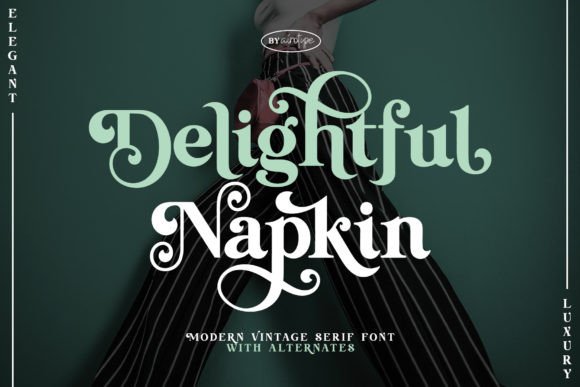
Introducing Delightful Napkin Font, the ultimate choice for creating captivating and timeless designs. This vintage serif font, crafted by airotype, seamlessly merges the classic elegance of the past with a modern and fancy twist.
With its enchanting curves and intricate details, Delightful Napkin Font is truly a work of art. It exudes sophistication and charm, making it the perfect companion for any project that demands a touch of class. From stunning invitations to remarkable branding, this font will elevate your creations to new heights.
What sets Delightful Napkin Font apart is its versatility. It effortlessly adapts to various design styles, allowing you to explore endless possibilities. Whether you're aiming for a vintage-inspired logo or an elegant wedding invitation, this font will effortlessly bring your vision to life.
Unlocking the full potential of Delightful Napkin Font is a breeze. Thanks to its PUA encoding, you can effortlessly access all glyphs and swashes, enabling you to customize and personalize your designs with ease. Embrace creativity and let your imagination run wild with this font's countless options.
Immerse yourself in the sheer beauty of Delightful Napkin Font. Its timeless appeal will evoke emotions of nostalgia while simultaneously captivating a modern audience. Stand out from the crowd and leave a lasting impression with this font's captivating charm.
In a world saturated with ordinary fonts, Delightful Napkin Font dares to be different. It is the epitome of uniqueness and style, allowing your designs to shine and leave a lasting impact on your audience. Let this font be the key to unlocking your creative potential.